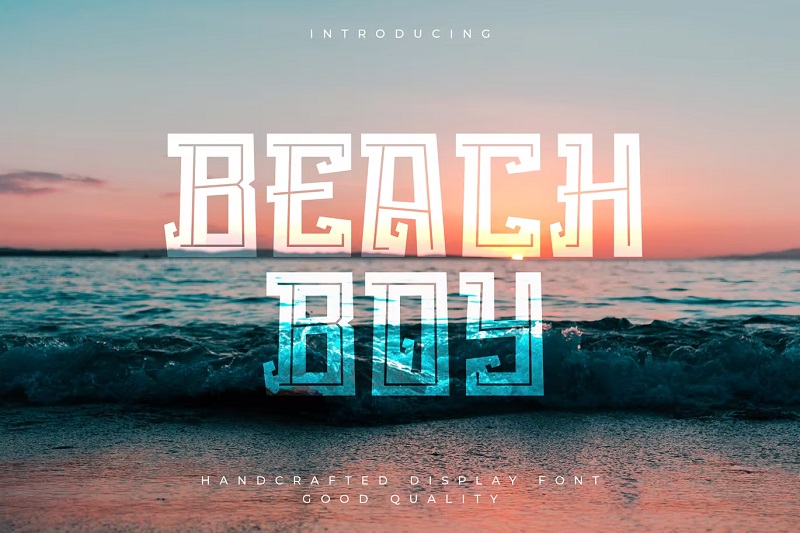
Looking for summer-themed fonts for your tropical designs? We’ve got you covered.
Below, we’ve listed the hottest summer fonts on the market. All the sunny fonts below have been created by professional designers—and they all have that summertime vibe you’re looking for.
The typefaces on this list evoke sand, sea, and sun, so they’re great for things like vacation brochures, beach house signage, and travel vlog/blog banners.
30 Best Summer Fonts
Ready? Then let’s jump into it. Here’s a list of the best free and premium summer fonts available right now.
1. Summering – Our Top Pick
#1 best summer font
Summering is a fun handwritten font by Stefaniletter. It has a fresh, friendly aesthetic with distinct, well-rounded letters that really stand out. It’s PUA encoded and comes with special alternate glyphs and ligatures that you can use to add visual interest to your designs.
Why it’s our top pick
Summering is the most popular summer font on Envato elements—and for good reason. It’s full of the kind of warmth and energy associated with the summertime. The letterforms are full of character but still highly readable, which makes this a very versatile typeface. It’d work well in pretty much any type of design.
2. Summer Blaze
Summer Blaze is a smoking hot brush font by Typefactoryco. It seems to radiate heat and relaxation. Try adding it to your beach cafe or surf shop signage for a fresh, eye-catching look.
The font pack includes uppercase letters, lowercase letters, punctuation, symbols, numbers, ligatures, alternates, and multilingual glyphs.
3. Summer Blues
Summer Blues Font
Take a trip down memory lane and relive those glorious summer nights with Summer Blues. This retro neon font features letterforms built from three sequential strokes and looks best set against darker backgrounds. It’s ideal for nightclub branding, movie posters, and magazines.
4. The Tide
Calling all travel vloggers and van lifers — we’ve found the perfect font for your brand.
The Tide is a stunning, chunky font that evokes adventures in the sun. Its carefree, rebellious design would look great in surf shops, YouTube covers, movie titles and posters, and any other surf- or sun-themed projects.
5. Alloha
Looking to add a Polynesian vibe to your designs? Check out Alloha — a Hawaiian-inspired summer display font by Vultype. The playful, modern design and unique letterforms would look great on any summer-themed project. It comes in TTF and OTF format and is accessible on Photoshop, Illustrator, Word, Canva, and pretty much any other design software.
6. Sunshine Valley
If you’re going for an elegant, feminine look in your summer designs, try Sunshine Valley. This monoline typeface from designer Letterhead is super romantic and stylish. The cursive script looks like it’s been carefully handwritten, so it’d look really nice in formal invitations to a beach wedding, as well as in stationery packaging and fashion products.
7. Palmsprings
Palmsprings is a collection of three layered fonts by designer Billy Argel. It features a cool palm-tree design, with all-caps, blocky letters that are overlaid with palm leaves. Don’t you think it would pair really well with tropical and beach-themed designs?
8. Beach Boy
Beach Boy Font
Beach Boy is a large, handcrafter display font from designer Naulicrea. It features quirky bold letters with small serifs and thick strokes inlaid with a thin line for added visual interest. It’s a fun font that would be perfect for beach event flyers, brochures, and posters. The download pack comes with A-Z and a-z letters, plus numerals and punctuation.
9. Sunshine
If you want to inject a little positivity and optimism into your summer designs, try Sunshine from Simonok. This bouncy typeface is fun, bold, and playful. It was designed 100% by hand and would look great on informal designs like children’s book covers and logos. It comes in 3 weights: light, medium, and bold, and is available in OTF and TTF format.
10. Vegan Style
Vegan Style is another brilliant summery font by talented designer Billy Argel. I don’t know about you, but it makes me think of fresh seasonal fruits and vegetables. I can see this one looking really nice as part of a vegan cafe branding or on vegan product packaging.